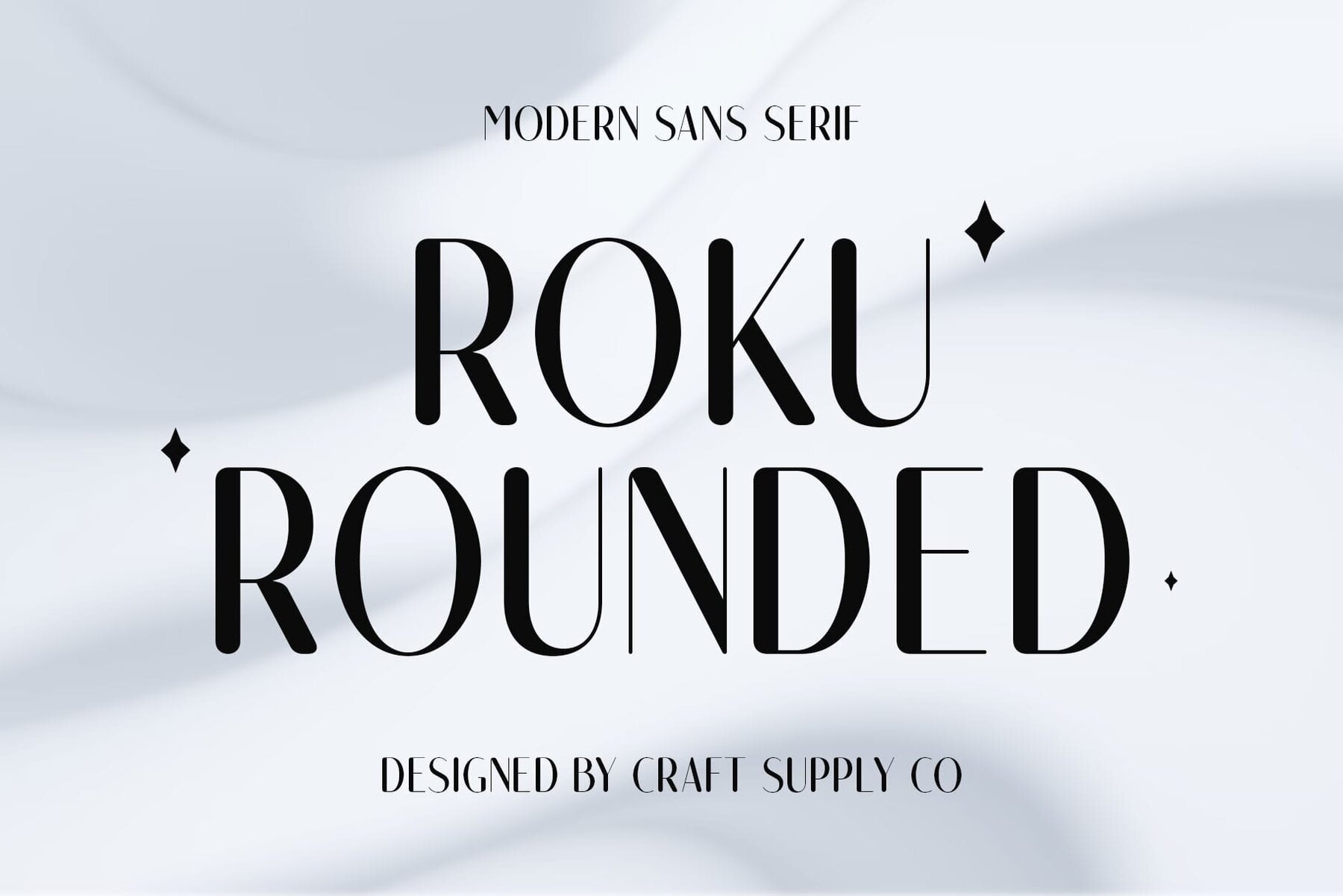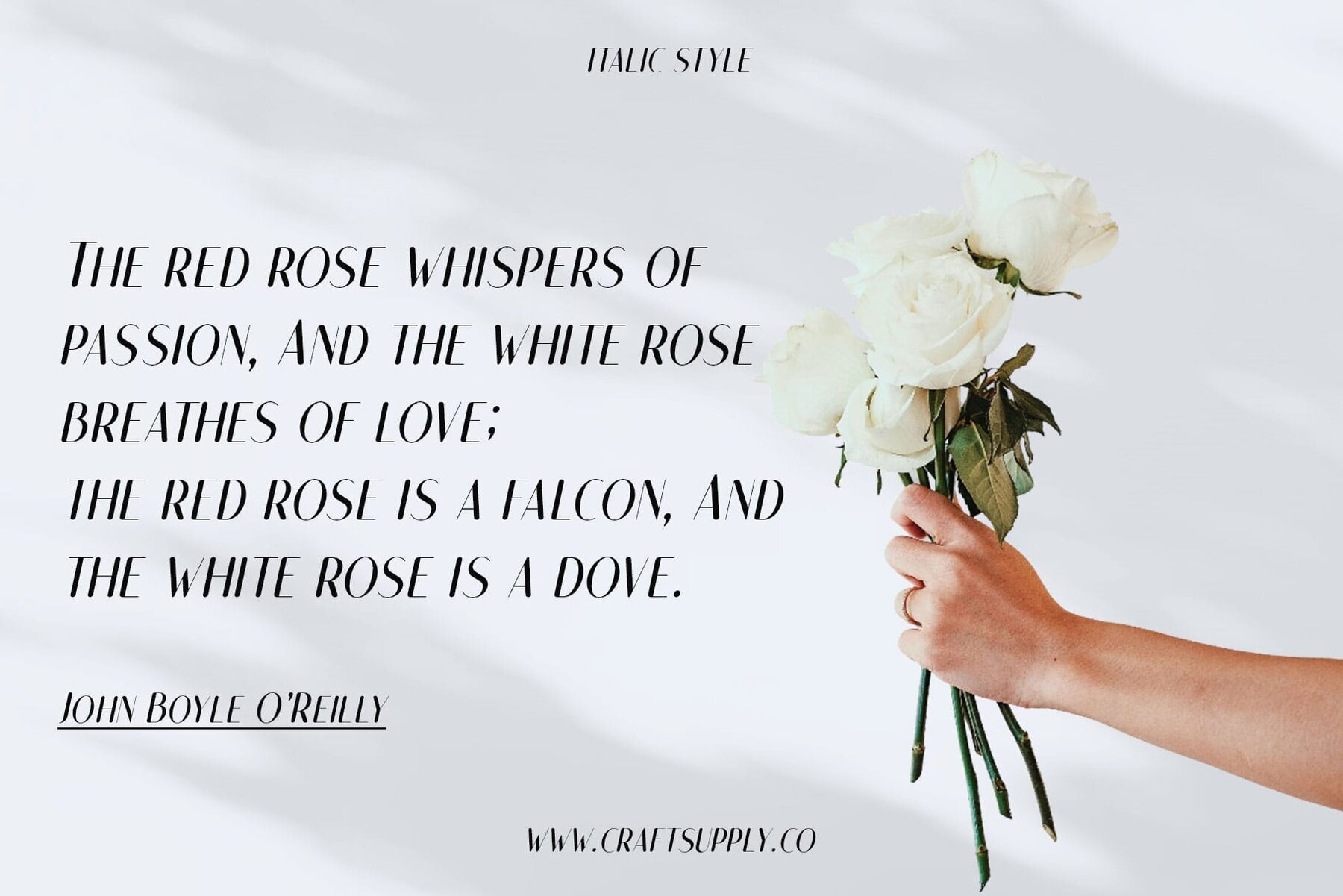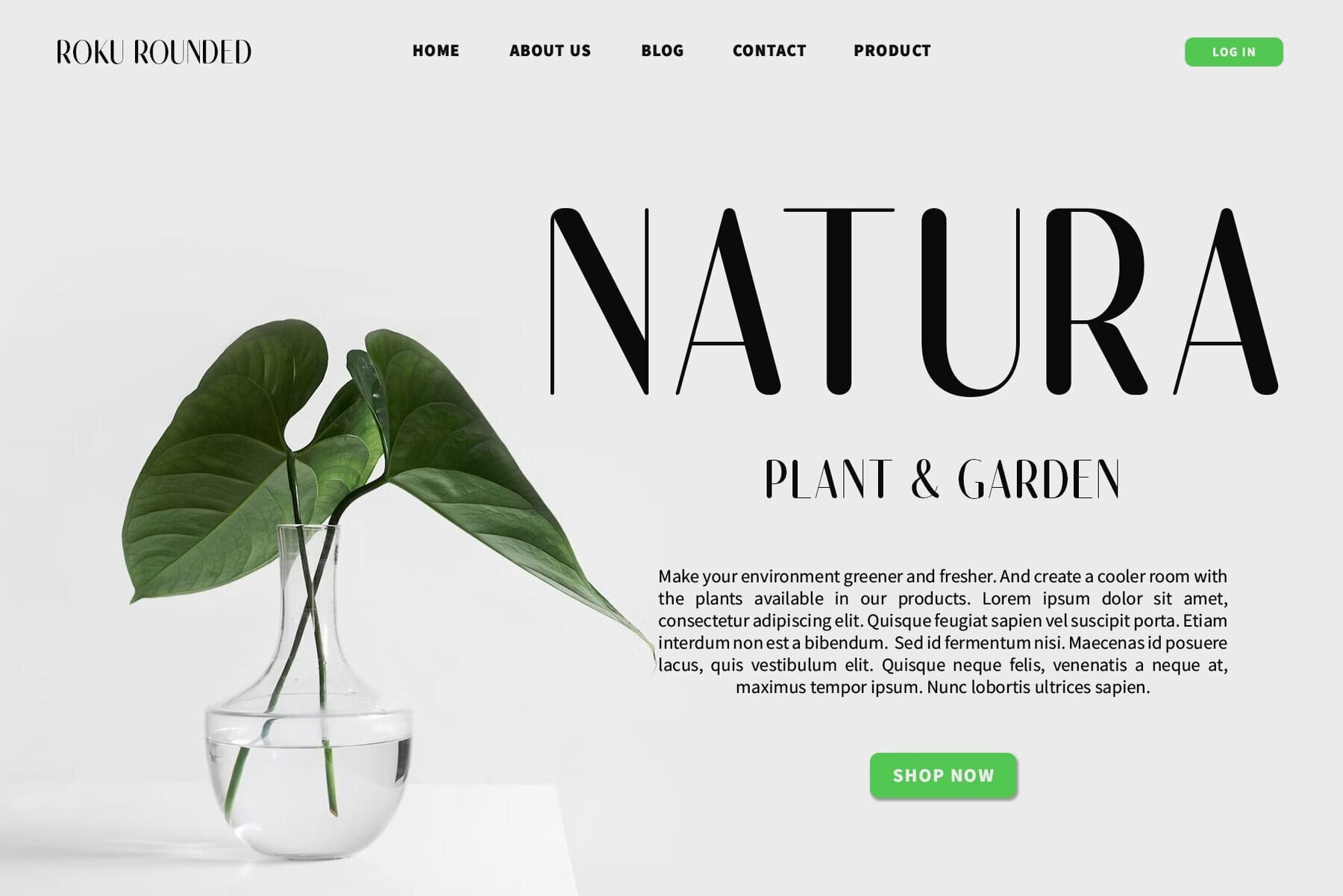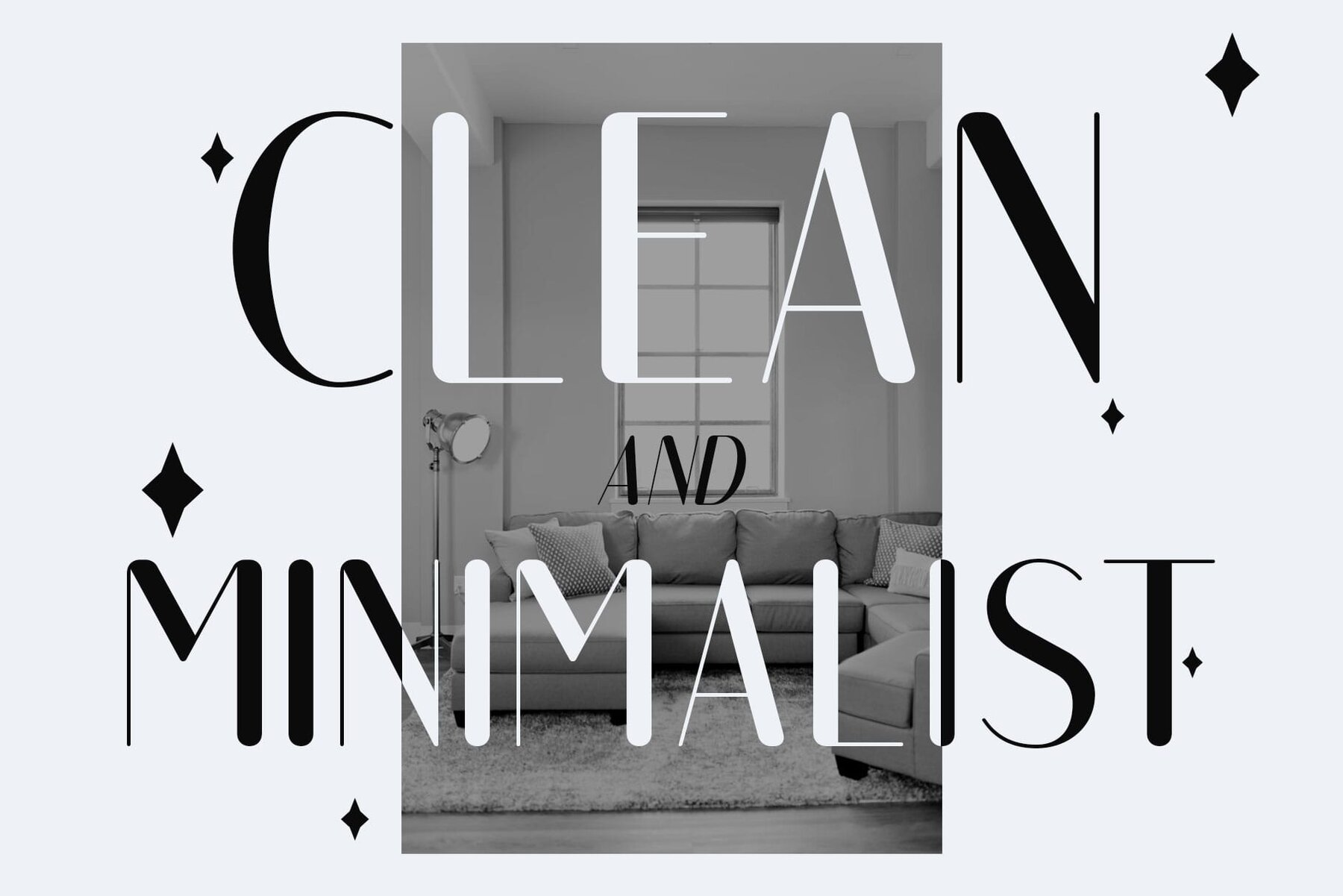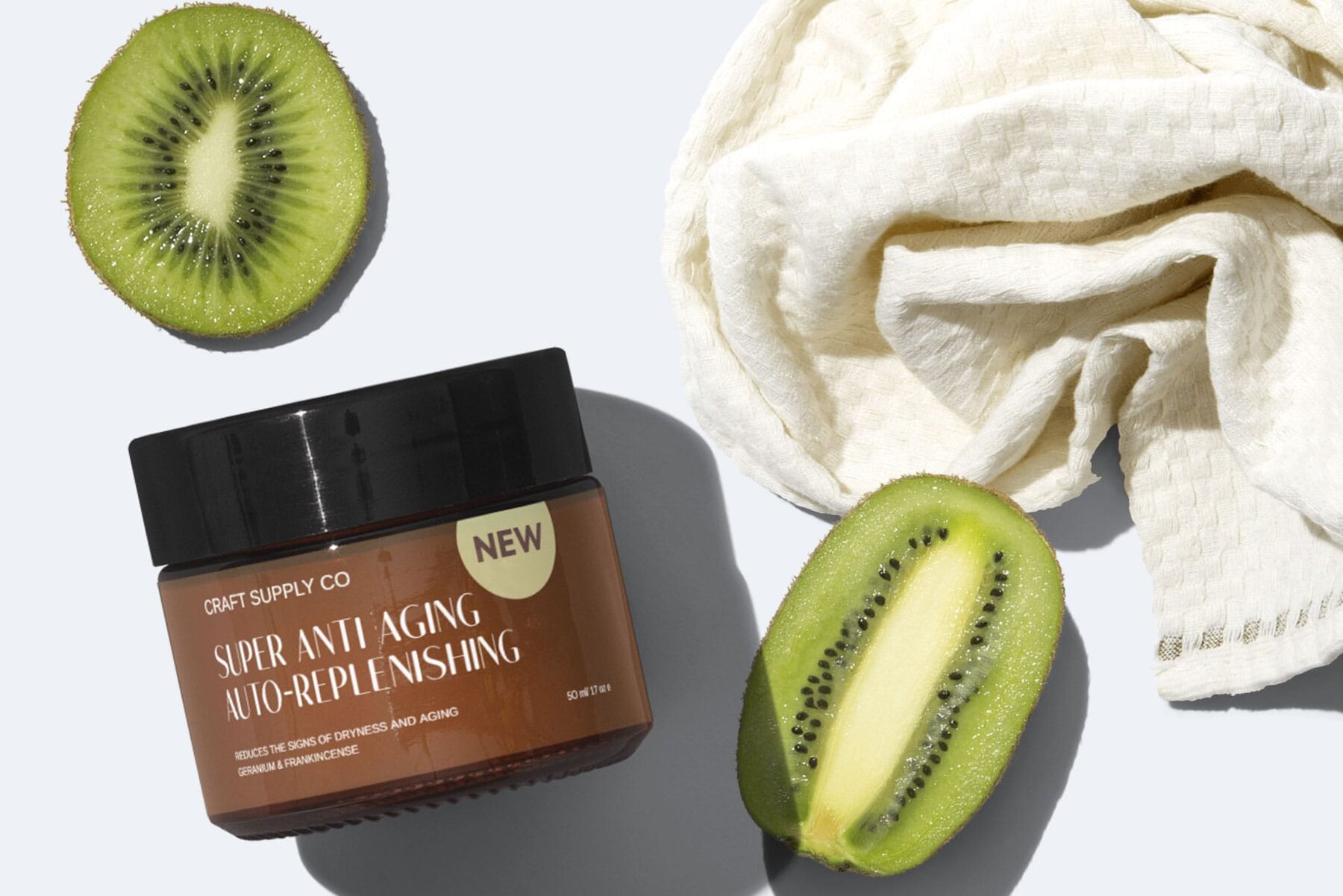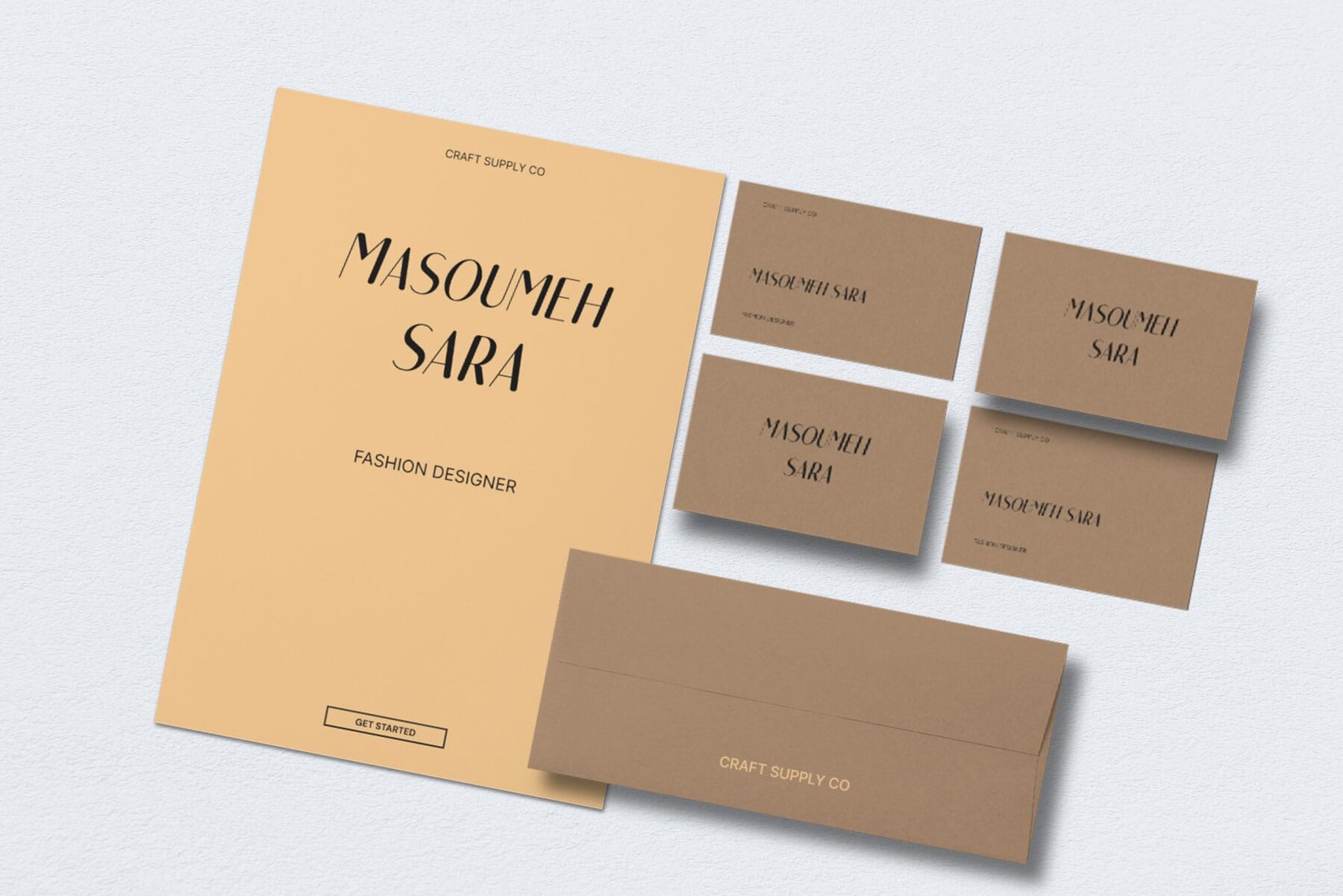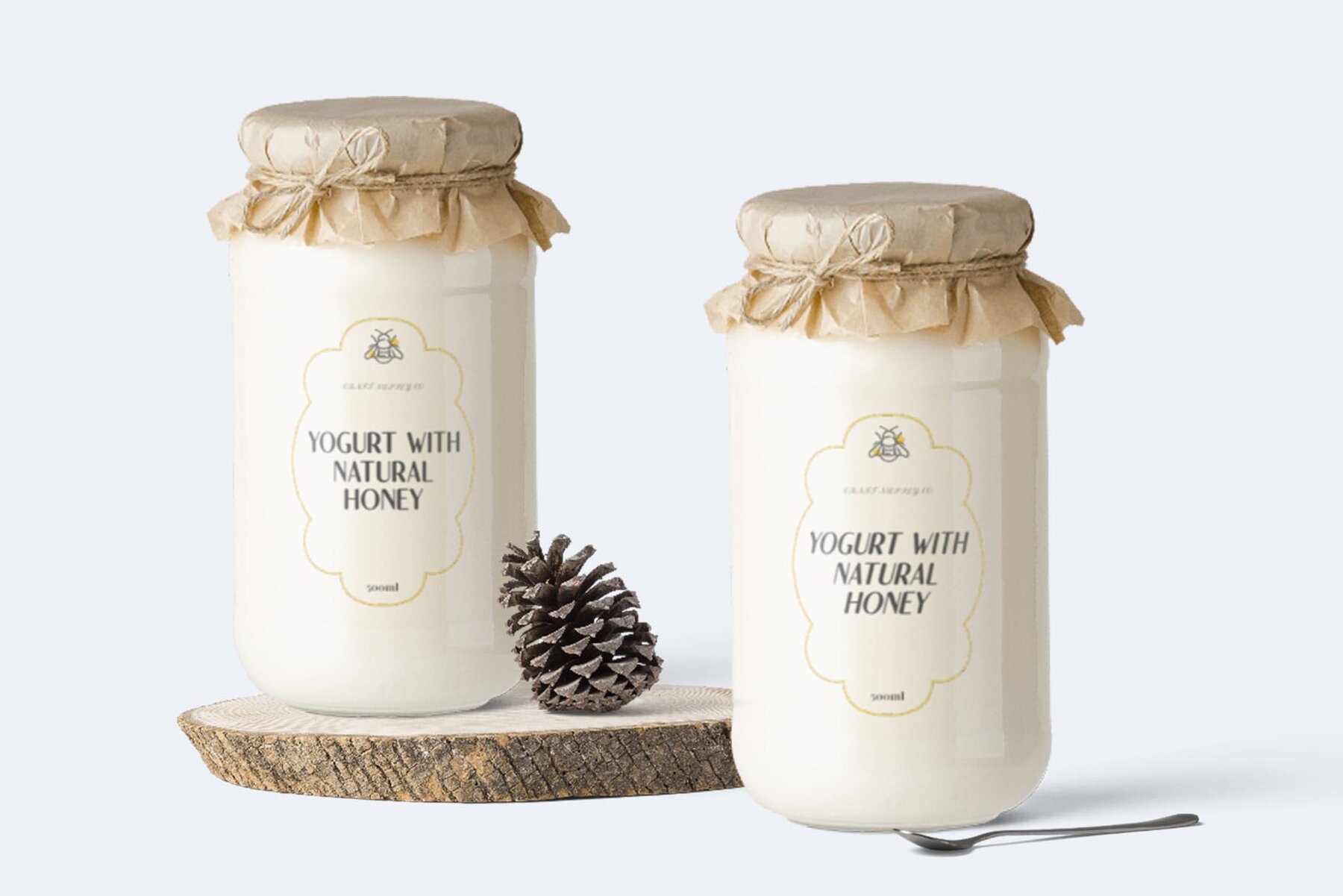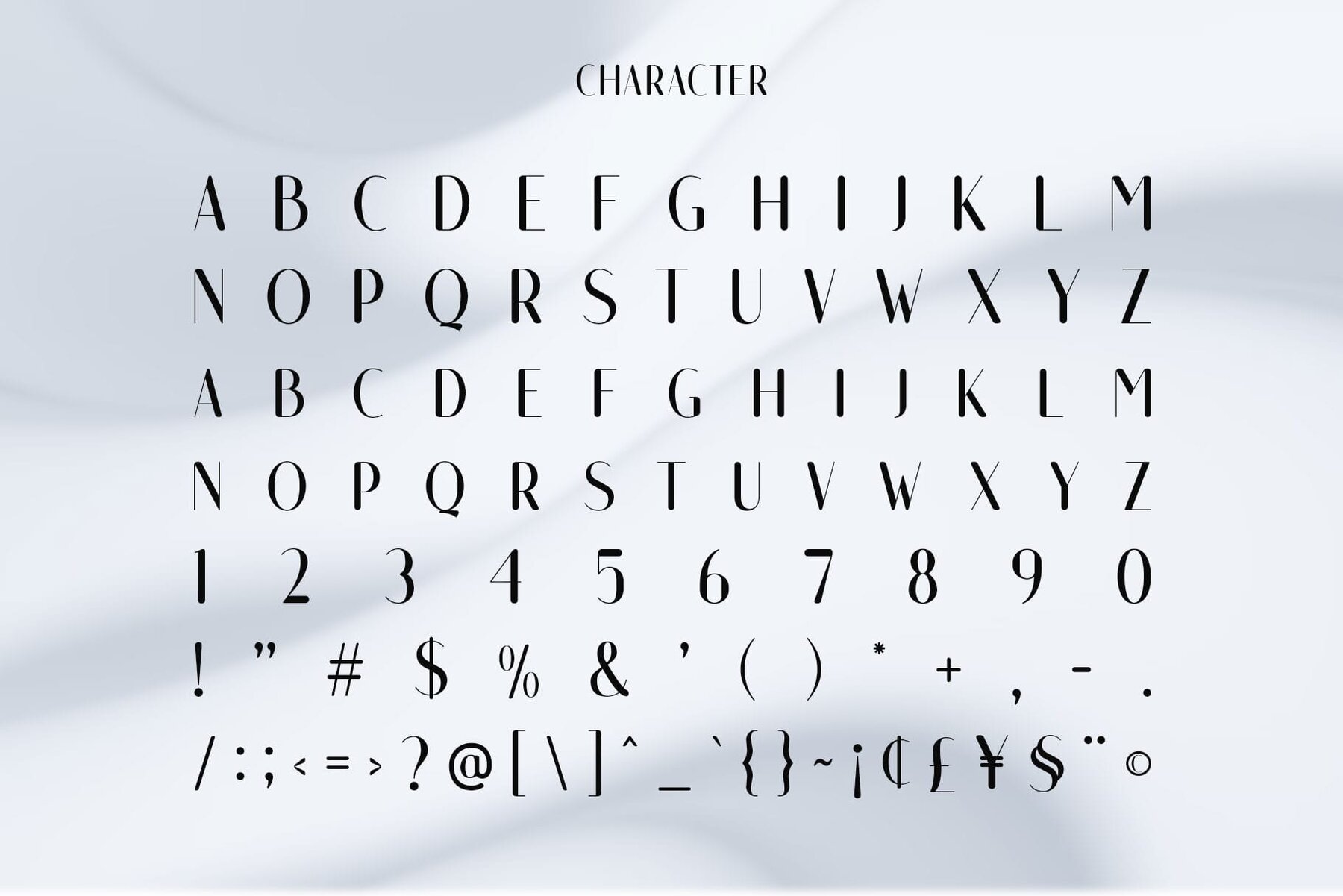
Roku Rounded Font
Roku Rounded presents a delightful sans-serif style enriched with low-contrast strokes, creating a warm and inviting appearance. Its rounded edges soften the overall look, enhancing its friendly appeal. Characterized by its modern design and rounded contours, this font strikes a perfect balance between professionalism and approachability. It fits seamlessly in various design contexts, from digital interfaces to printed materials. Designed with versatility in mind, Roku Rounded excels across diverse platforms, including websites, mobile apps, and branding materials. Its user-friendly demeanor ensures a positive experience in every interaction. In today’s digital landscape, effective communication is paramount. This font enhances modern communication with its friendly and approachable nature, making it an excellent choice for conveying messages with warmth and clarity. Roku Rounded embodies the essence of contemporary design with its low-contrast, rounded sans-serif style. Whether in digital or print, it adds a touch of modernity and friendliness to any project, fostering positive connections with audiences. This typeface is accessible without needing specialized software. If you have any inquiries or need assistance, please feel free to contact us. Your support in enhancing your creative projects is greatly appreciated. Best regards, Craft Supply Co.Roku Rounded: Modern Friendliness in Typography
Design Features
Versatility Across Platforms
Enhancing Modern Communication
Combining Modernity and Approachability